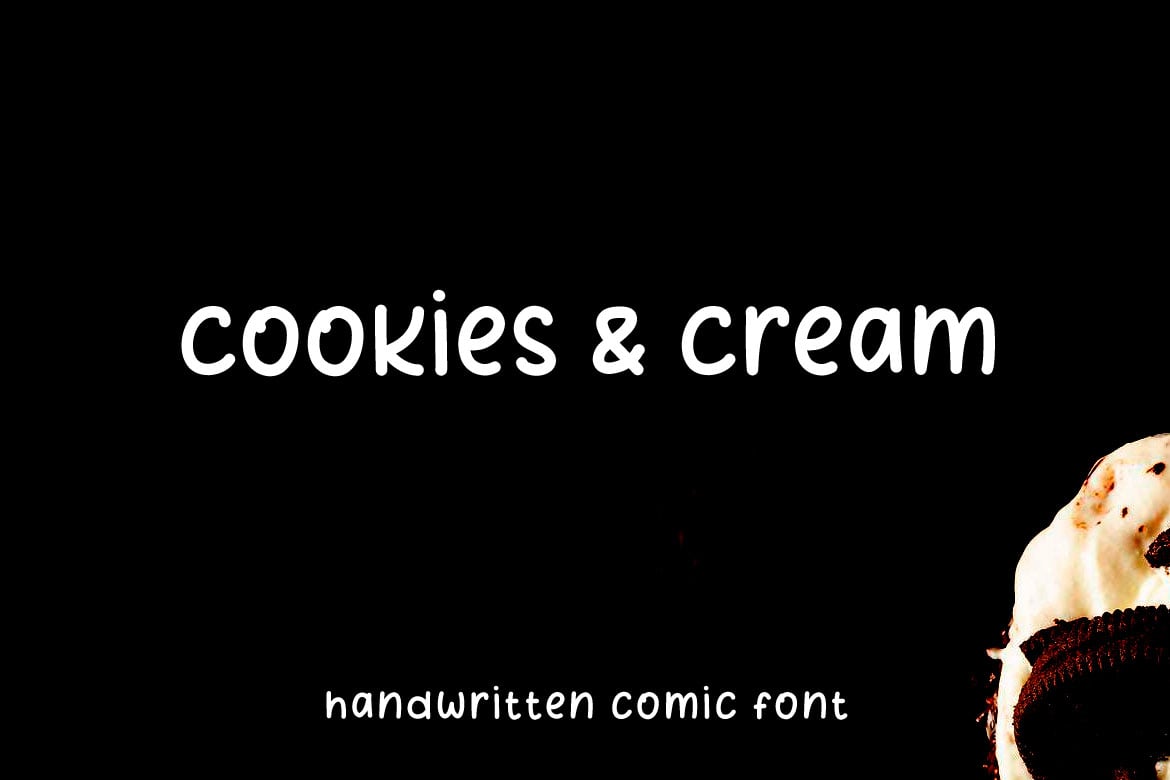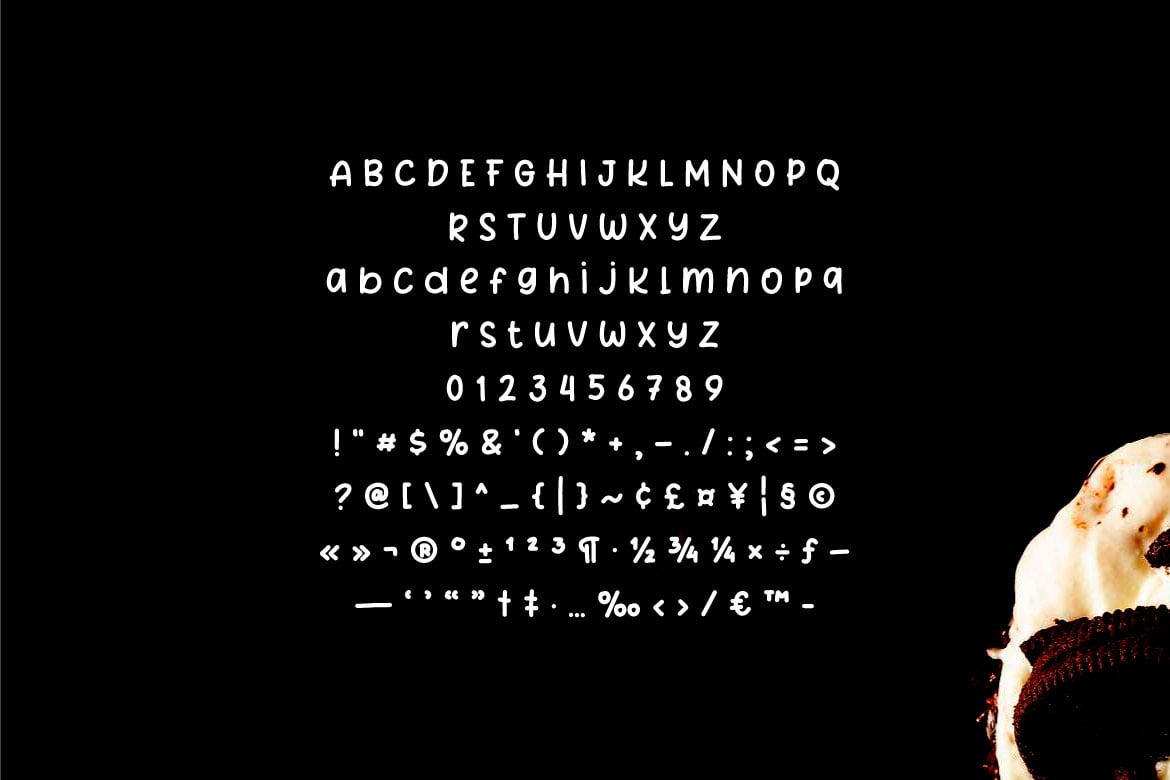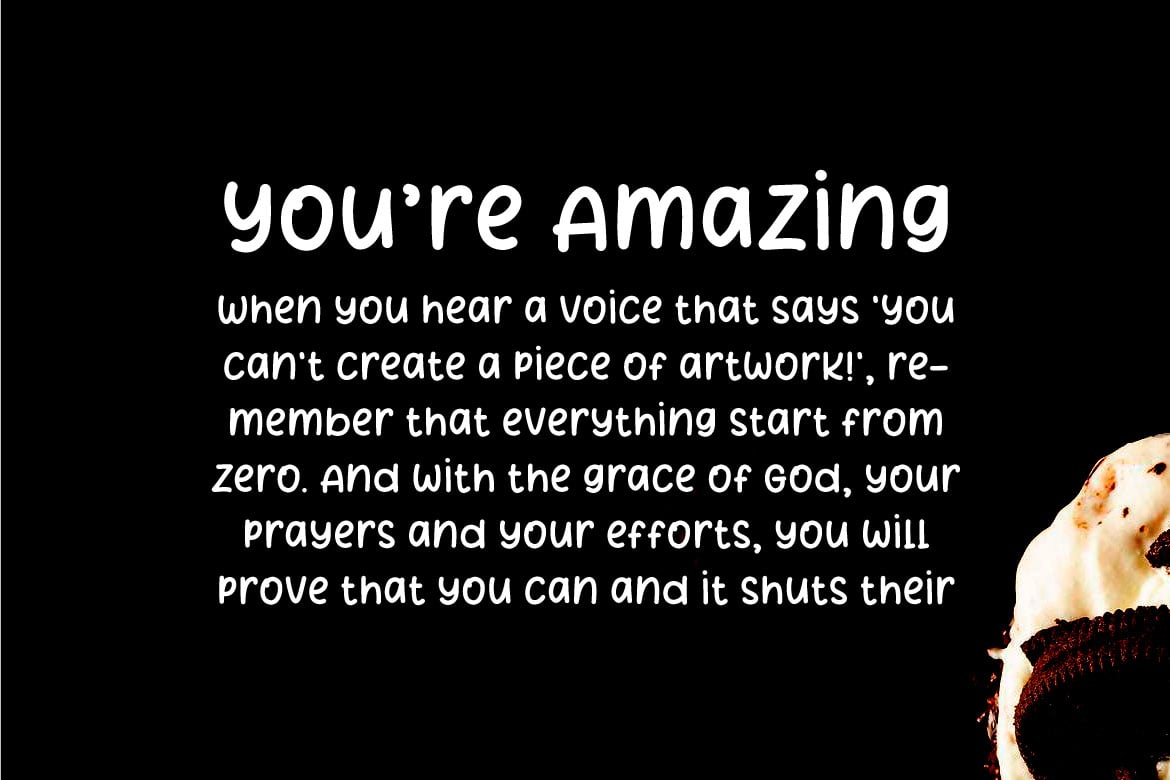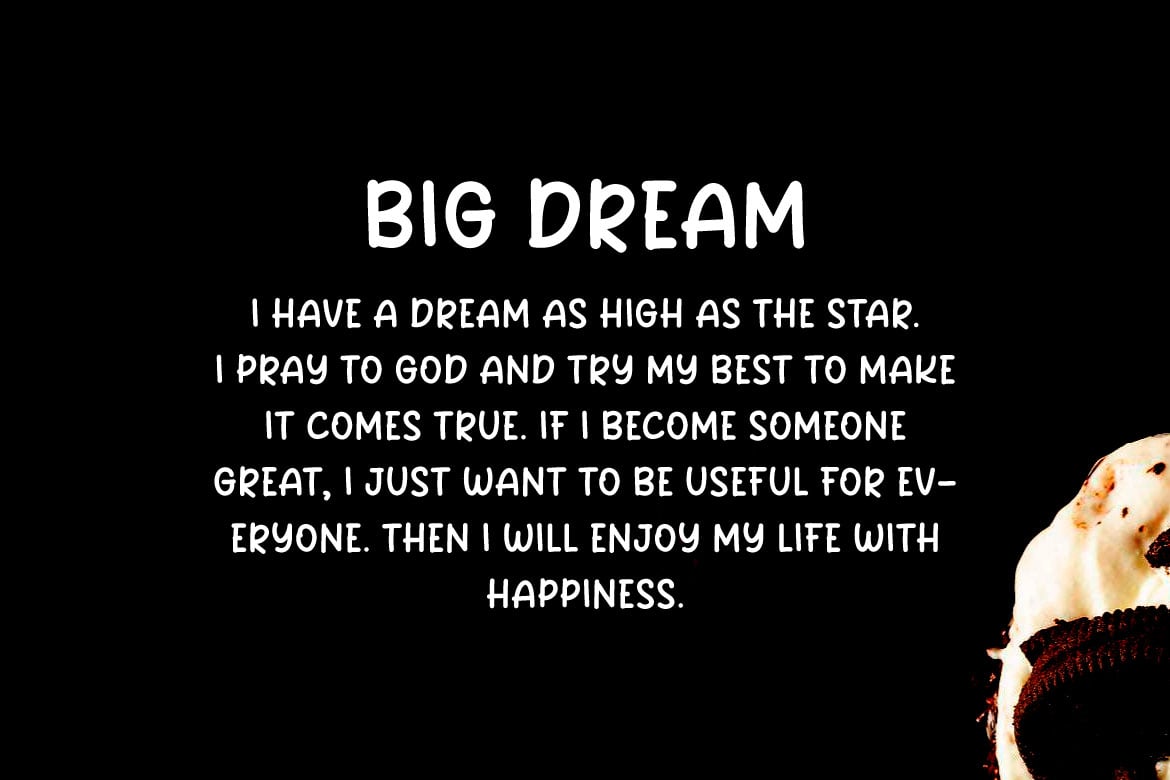
Cookies and Cream – Comic Font
Hello! Cookies and Cream is a minimalist handwritten comic font.
Cookies and Cream can be used in any works such as comic book, poster, school, flyer, book title, advertisement, social media content, logo and many more.